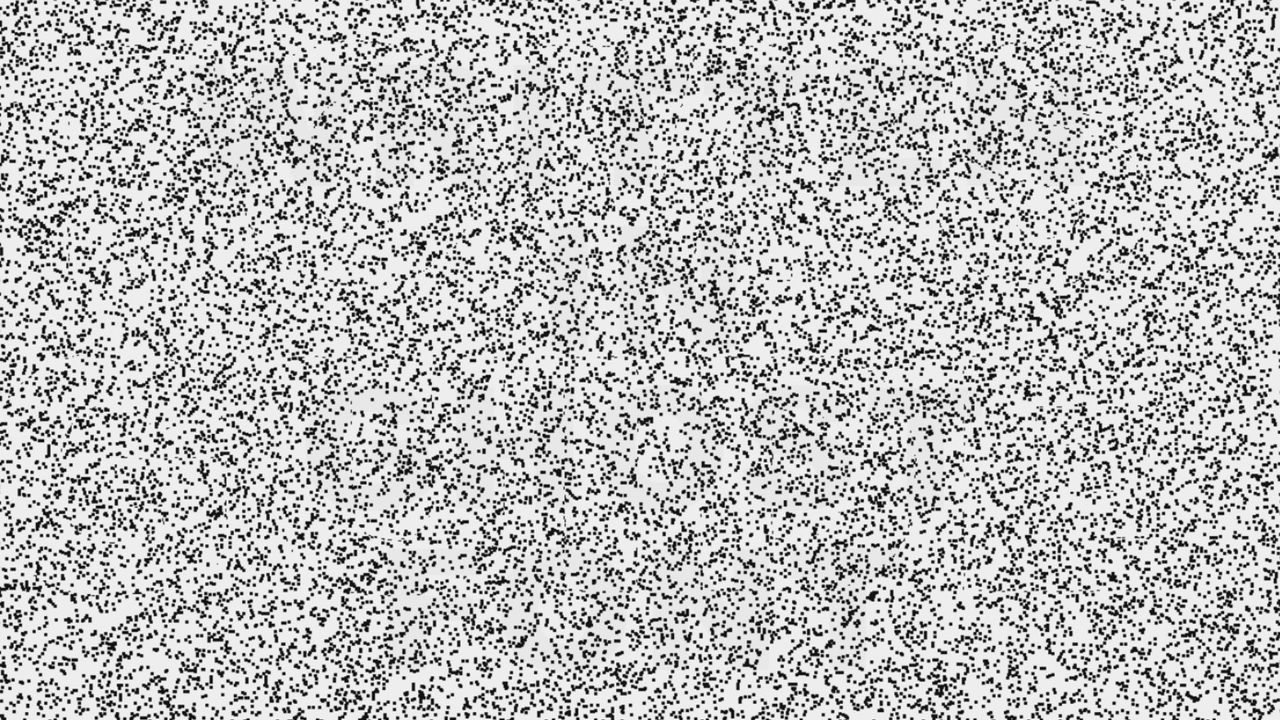
AI is getting remarkably good at reading documents, recognizing messy handwriting and even understanding blurry screenshots. But now, something called Ghost Font is exposing a weakness most of us never even knew about until now.
Ghost Font is essentially an optical illusion that hides letters inside hundreds of moving dots, relying on the human brain's ability to detect motion rather than visible shapes. Naturally, I had to find out what makes it work — and why it appears to confuse today's AI models.
What is Ghost Font?
Ghost Font is an experimental typography project created by designer Eric Lu that explores the differences between human and machine vision.
Rather than drawing letters with solid lines, Ghost Font fills the screen with thousands of tiny dots. The dots inside the hidden letters move in one direction while the surrounding dots drift in another. Your brain instinctively groups the moving pixels together, allowing the hidden word to emerge even though there are no visible outlines.
But when the animation is paused, the illusion disappears. All that's left is what looks like random visual noise.
The project can even include decoy text designed to mislead AI systems, causing some models to confidently identify the wrong message while humans continue to see the intended one.
How to try Ghost Font yourself
Curious whether your favorite AI chatbot can crack it? You can run the same experiment in just a few minutes. Visit the Ghost Font website.
Enter a short phrase, such as "HELLO HUMAN" or "TOM'S GUIDE." Generate the animation and make sure you can read the hidden message yourself. Download the animation or record your screen.
Upload it to ChatGPT, Claude or Gemini and simply ask, "What does this animation say?"
Compare the responses. Does the AI identify the hidden message, read the decoy text or confidently guess something else?
For an extra challenge, try again with a more specific prompt, such as: "Analyze the motion in this animation over time to determine the hidden text." See whether giving the AI more context changes the result.
Why AI struggles
Ghost Font exploits a fundamental difference between how humans and today's AI vision models interpret visual information.
Humans are remarkably good at recognizing motion patterns because our visual system naturally combines tiny changes over time into meaningful objects, allowing us to spot the hidden letters almost instantly.
Many multimodal AI models, however, still analyze video much more like a rapid sequence of individual images. Because Ghost Font intentionally removes the high-contrast edges and stable letter shapes that optical character recognition systems expect, the hidden message can become surprisingly difficult to detect.
Let me be clear. This doesn't mean AI can't ever read Ghost Font, it means the illusion targets a weakness in how many current vision systems process moving images. So, before you start hiding passwords inside Ghost Font animations, there's an important caveat. Ghost Font isn't encryption, and its creator doesn't present it as a security tool.
Given enough video frames, optical-flow analysis or specialized computer vision techniques, AI systems can likely recover the hidden message. In fact, some developers have already reported success after explicitly explaining how the illusion works or allowing models to analyze the animation frame by frame.
As vision models improve, they'll almost certainly become better at decoding tricks like this.
Why this matters
Ghost Font is interesting because it highlights something we don't often think about: humans and AI don't actually "see" the world in the same way.
For decades, CAPTCHAs exploited the gap between human and machine perception by generating distorted text that people could still recognize but computers struggled to read.
Ghost Font explores a modern version of that idea. Instead of distorting letters, it relies on motion itself as the signal, taking advantage of a capability humans perform almost effortlessly.
Ghost Font probably won't stay ahead of AI forever. But the project offers a fascinating glimpse into the differences between human and machine perception at a time when multimodal AI is becoming increasingly capable. Rather than proving AI is easily fooled, Ghost Font shows that there are still corners of human vision that today's models haven't fully mastered.